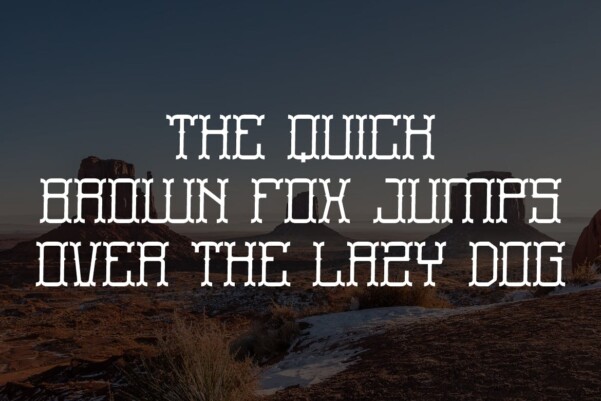
The Bandito Font
Designer: holadesignstd
The Bandito Font is unique. Ready to use for your designs, such as labeling, movie scene, poster, movie title, concerts, album covers, logos and much more